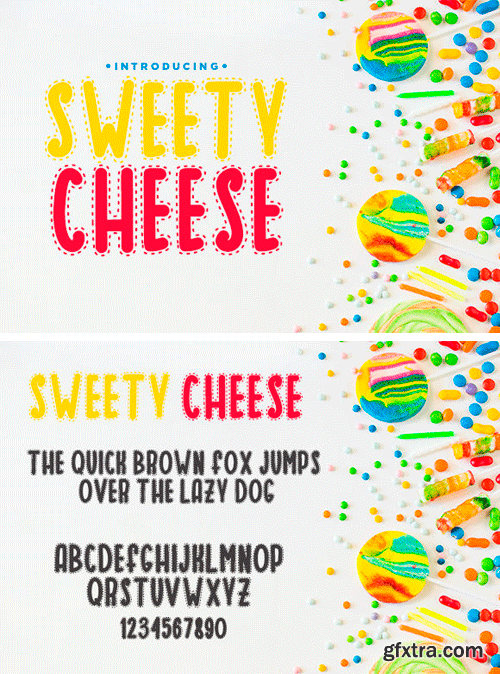
Sweety Cheese Font
The Sweety Cheese is a whimsical, hand-crafted font that adds a sweet, fun, and shiny touch to any project, whether in print or digital application.